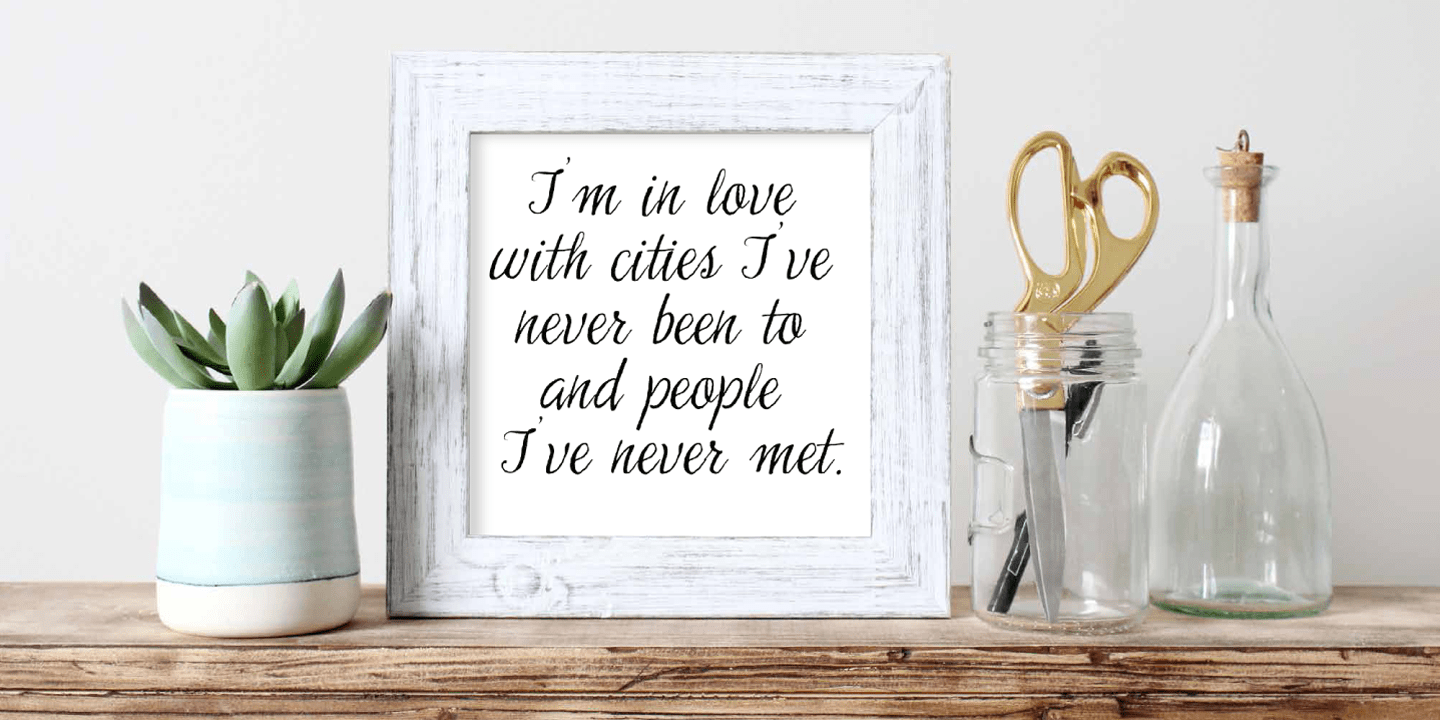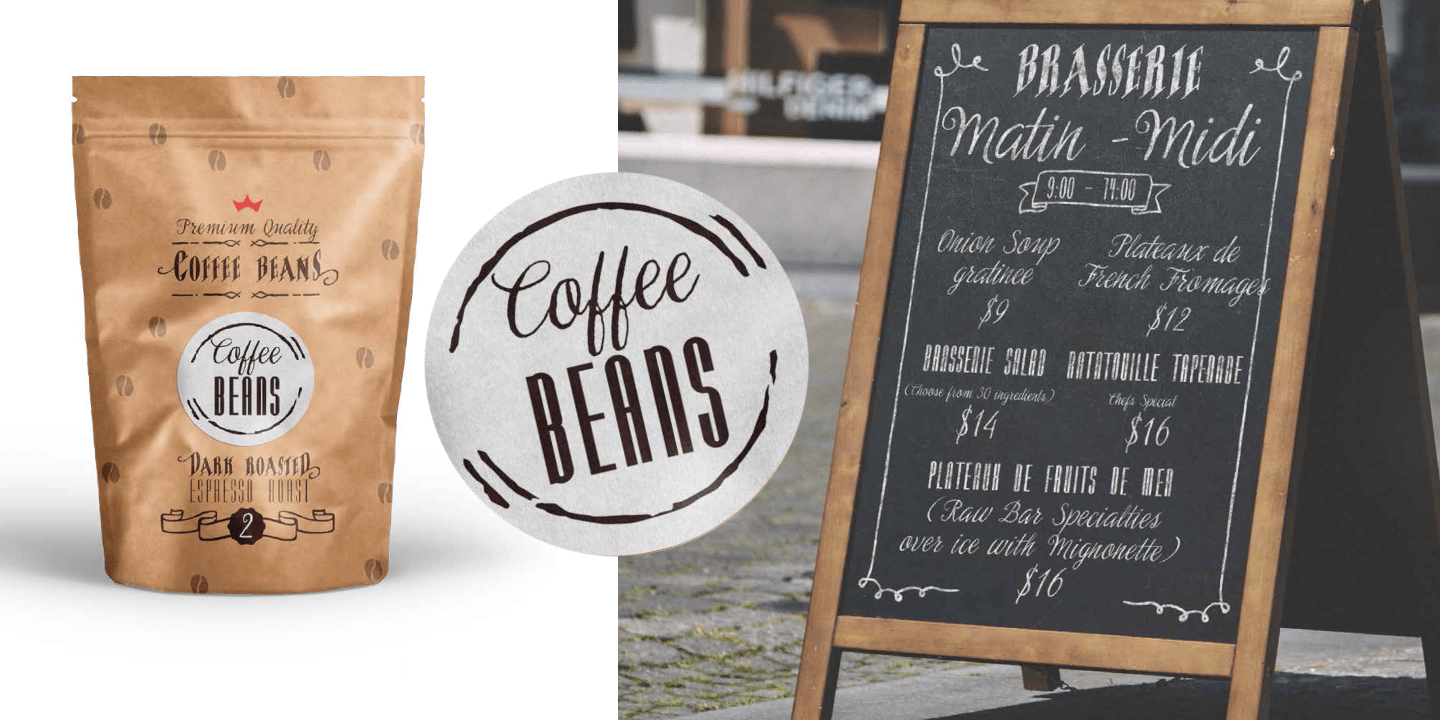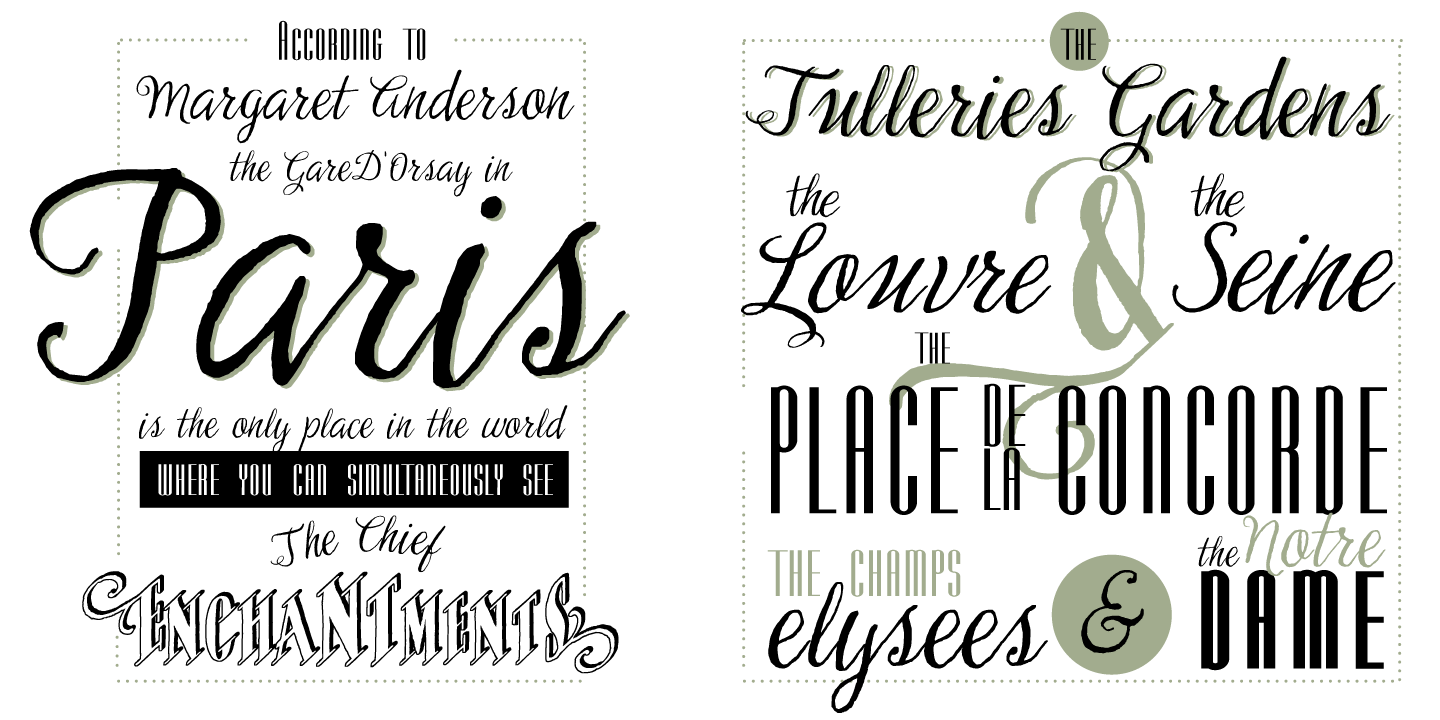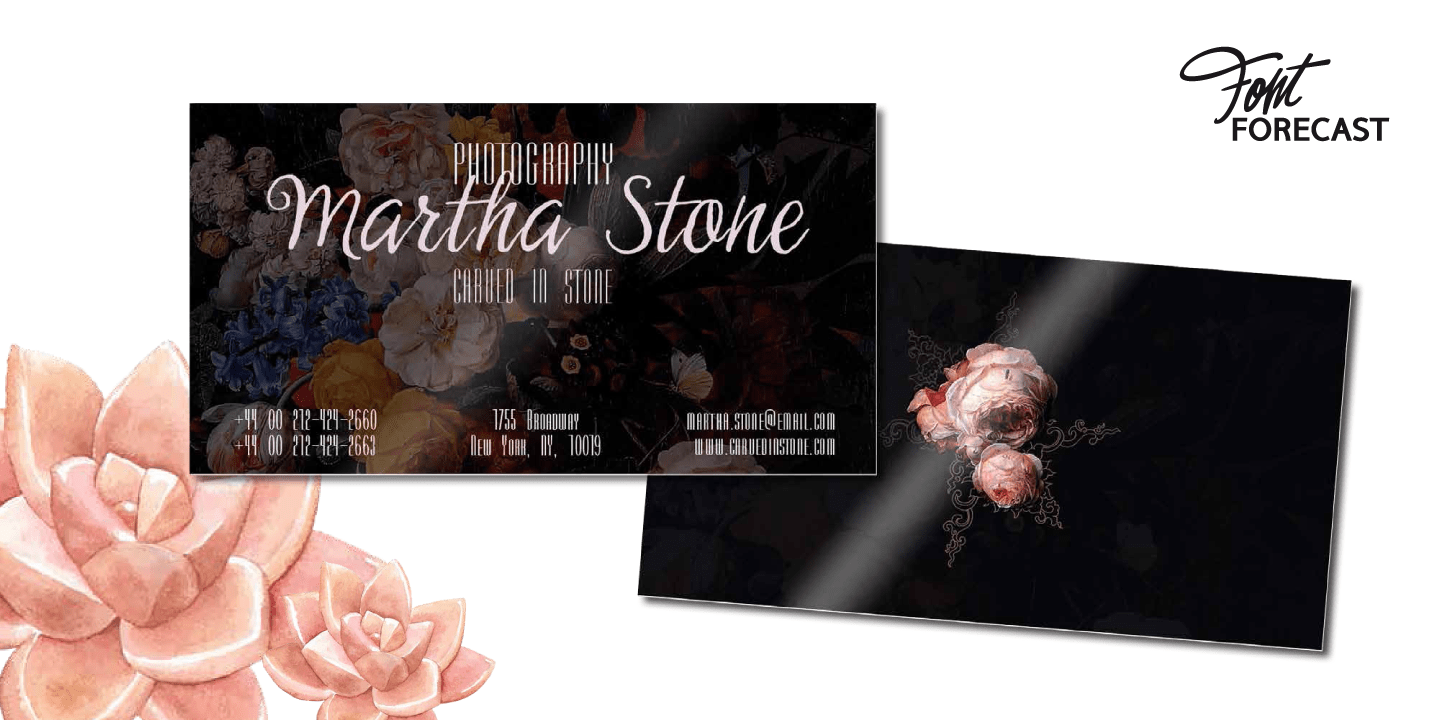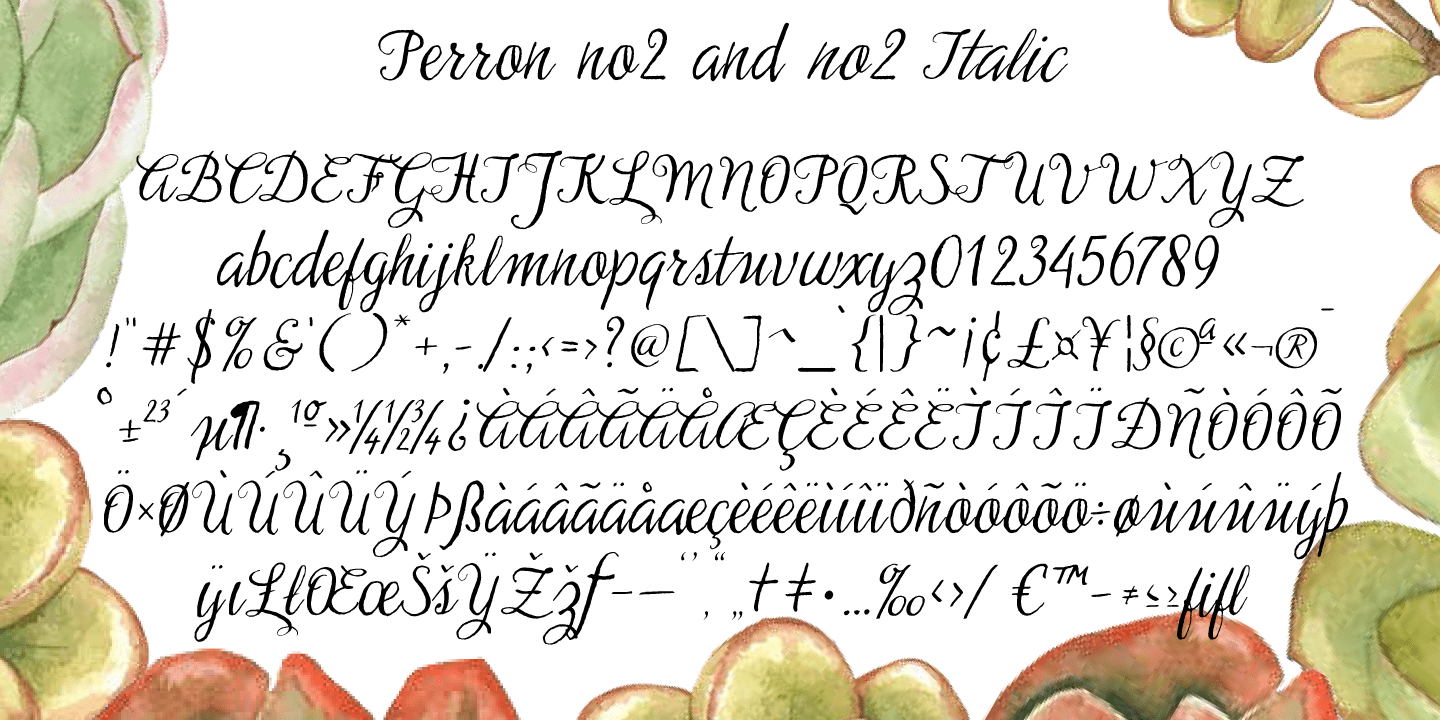
About Perron
MEET THE successor of our bestselling design kit \’Chameleon\’: Perron. The concept of designing MULTIPLE contrasting designs under the same name was first introduced by Fontforecast in TyfoonSans and TyfoonScript. Two font families that were designed to…